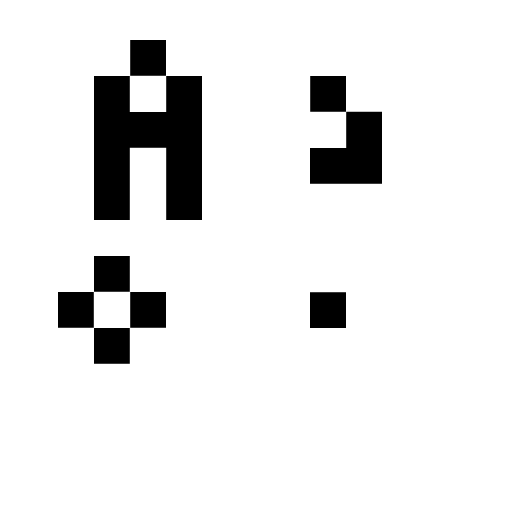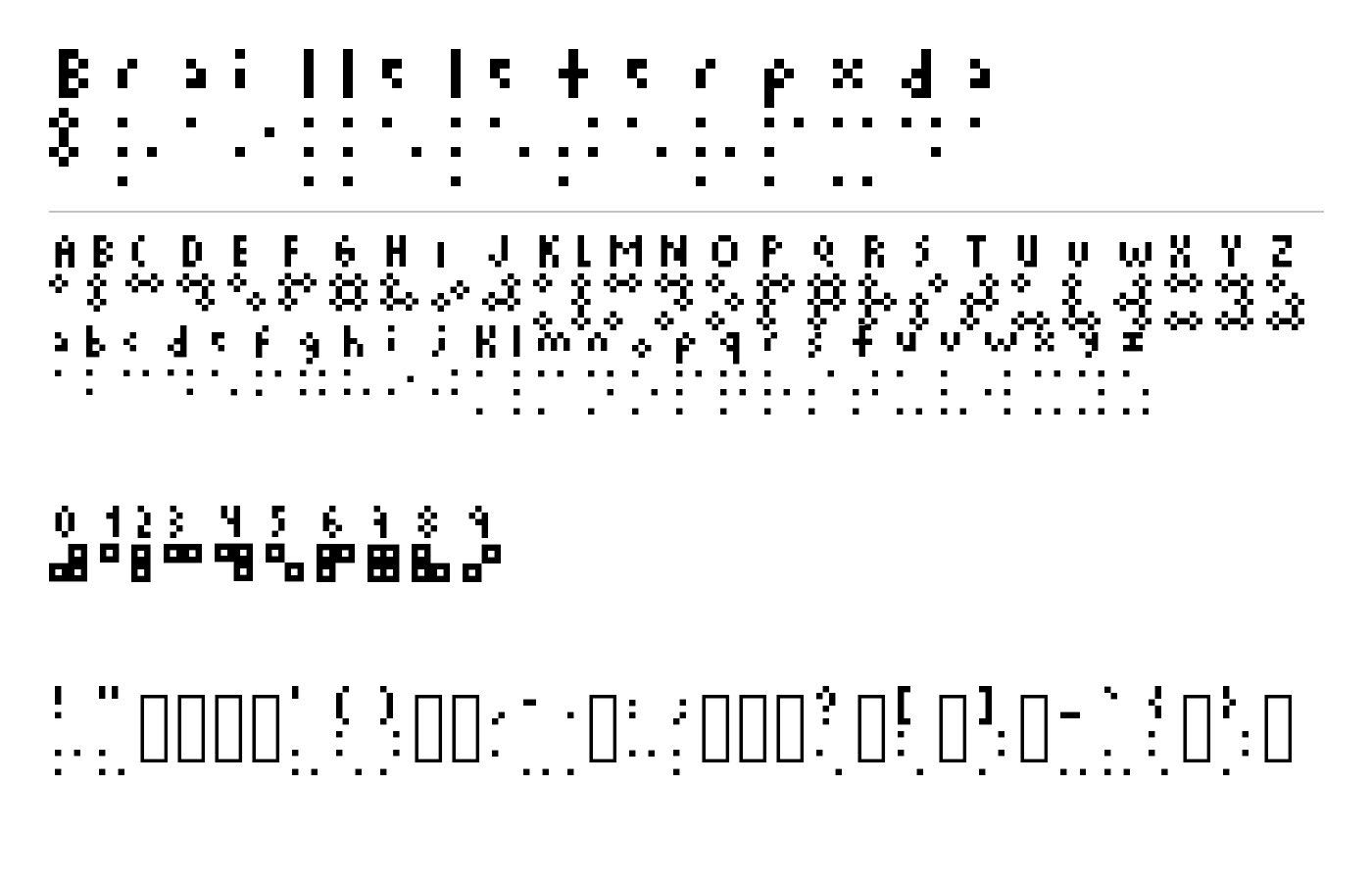
Brailleleterpxda is a pixelated monospaced font inspired by the Braille writing system, featuring blocky, dot-based letterforms with a retro digital feel. Its clean, minimalist style makes it ideal for tech-themed designs, digital art, or creative projects that want to evoke a sense of encoded or tactile communication. This font works best in headlines, logos, or displays where a unique, modern, and slightly futuristic aesthetic is desired.
Brailleleterpxda Font
About Brailleleterpxda Font